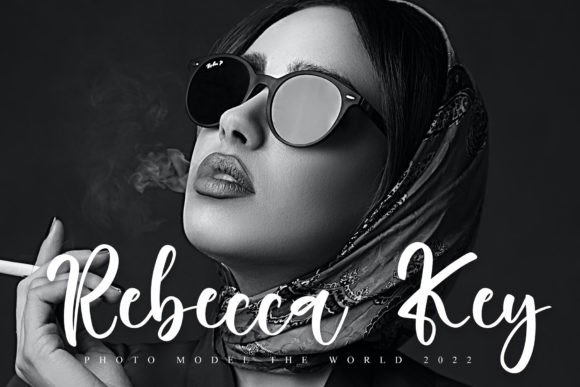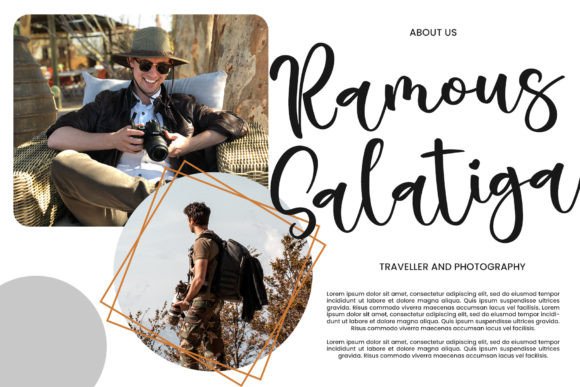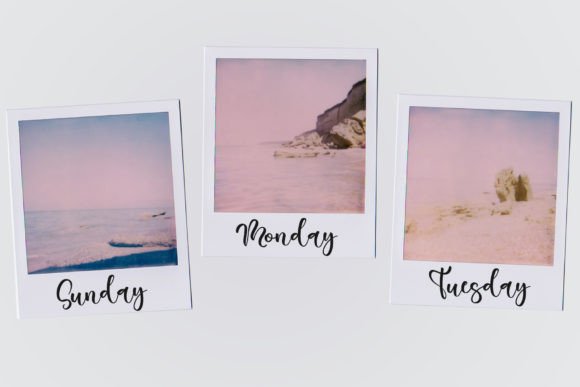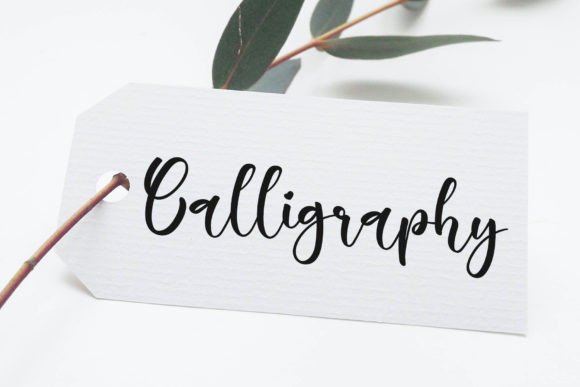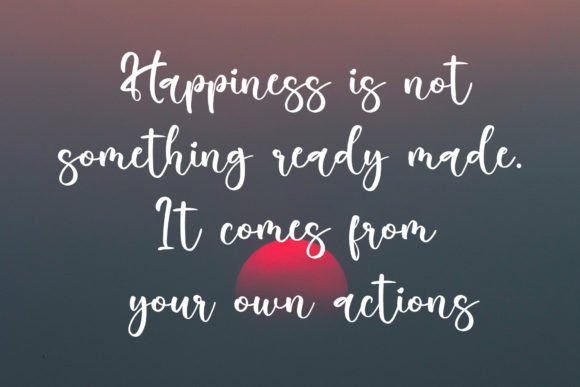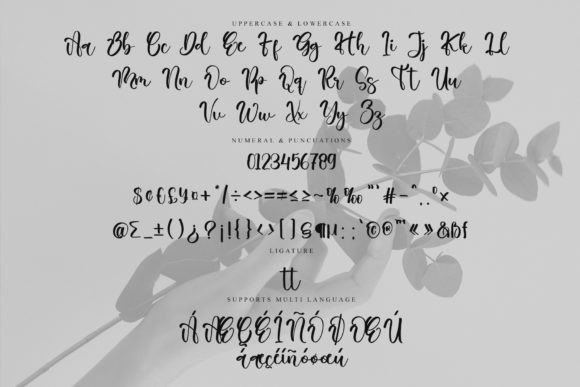
Branches Font: Elevate Your Designs with a Stylish and Dainty Script Font
Are you looking for a font that adds a touch of elegance and sophistication to your designs? Look no further than Branches Font, a beautiful script font that is perfect for a variety of projects. In this article, we’ll take a closer look at Branches Font, its features, and how you can use it to take your designs to the next level.
What is Branches Font?
Branches Font is a stylish and dainty script font that is designed to add a touch of elegance to your designs. Its delicate lines and curves make it perfect for projects that require a sophisticated and refined look. Whether you’re working on a logo, branding project, label, photography, watermark, or special event, Branches Font is the perfect choice.
Key Features of Branches Font
Branches Font comes with a range of features that make it a versatile and easy-to-use font. Some of its key features include:
• PUA Encoding: Branches Font is PUA encoded, which means you can access all of the glyphs and swashes with ease. This makes it easy to customize your designs and add your own personal touch.
• Stylish and Dainty Design: The font’s delicate lines and curves make it perfect for projects that require a sophisticated and refined look.
• Wide Range of Uses: Branches Font is suitable for a wide range of projects, including logos, branding projects, labels, photography, watermarks, special events, and more.
Benefits of Using Branches Font
There are many benefits to using Branches Font in your designs. Some of the most significant advantages include:
• Elegance and Sophistication: Branches Font adds a touch of elegance and sophistication to your designs, making them perfect for high-end projects.
• Versatility: The font’s PUA encoding and range of glyphs and swashes make it easy to customize and adapt to different projects.
Tips and Tricks for Getting the Most Out of Branches Font
Here are some tips and tricks for getting the most out of Branches Font:
• Experiment with Different Sizes: Try out different font sizes to see how Branches Font looks in different contexts.
• Combine with Other Fonts: Combine Branches Font with other fonts to create a unique and interesting look.
• Use Glyphs and Swashes: Take advantage of the font’s PUA encoding to add glyphs and swashes to your design.
Branches Font is a beautiful and versatile script font that is perfect for a wide range of projects. Its elegant and sophisticated design, combined with its PUA encoding and range of glyphs and swashes, make it a great choice for designers looking to add a touch of refinement to their work. Whether you’re working on a logo, branding project, label, or something else, Branches Font is sure to impress.